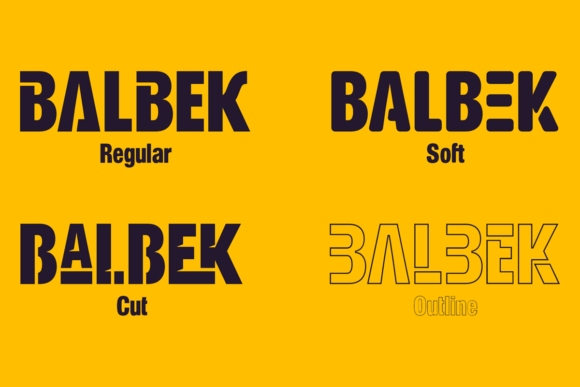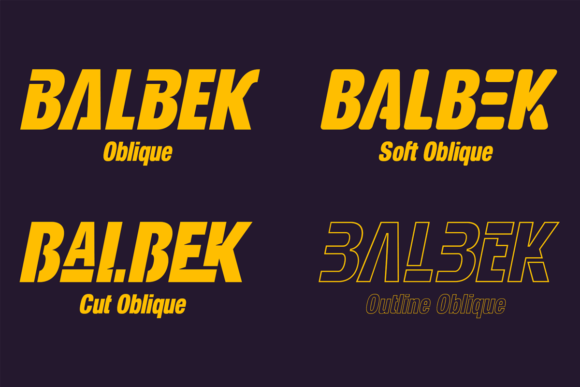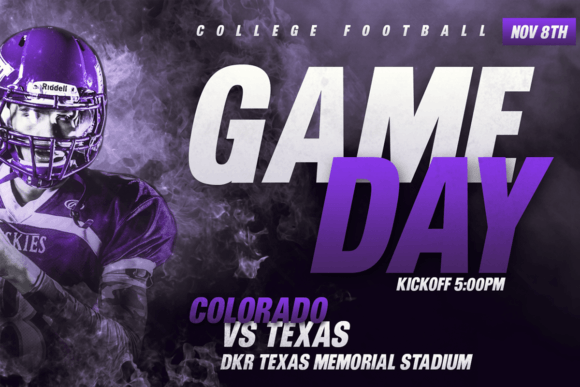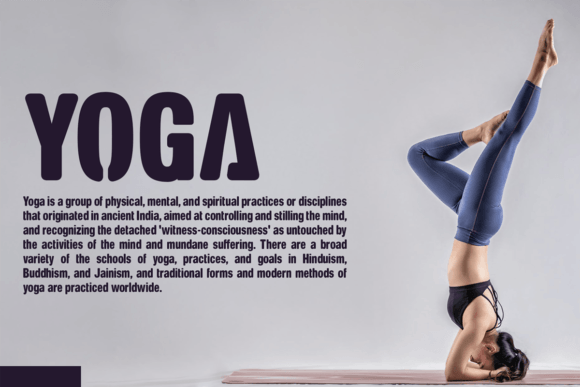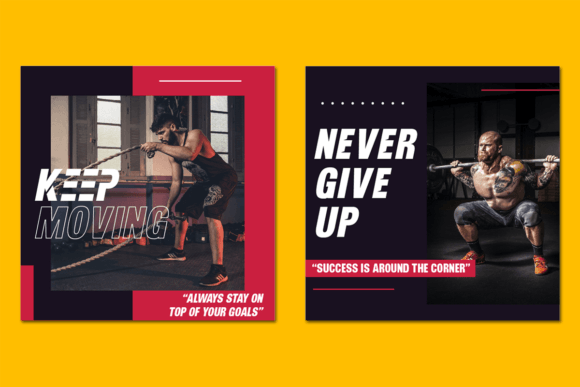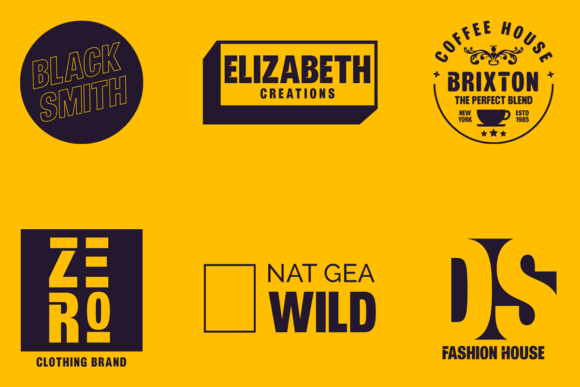
Introducing Balbek: A Modern Condensed Sans Serif Ligature Typeface
In the world of typography, a new font has emerged that’s making waves among designers and crafters alike. Meet Balbek, a modern, condensed sans serif ligature typeface that’s perfect for headlines, advertisements, product packaging, newspapers, and posters. In this article, we’ll dive into the features and inspiration behind Balbek, and explore how it can elevate your next design project.
The Inspiration Behind Balbek
The Balbek font was inspired by other condensed sans serifs, such as Gabo Drive and Impact. These fonts are known for their bold, eye-catching, and heavy designs, making them perfect for grabbing attention. The creator of Balbek took these inspirations and ran with them, crafting a unique and modern take on the condensed sans serif genre.
What Makes Balbek Stand Out
So, what sets Balbek apart from other fonts in its class? Here are a few key features that make it an excellent choice for designers and crafters:
- Condensed design: Balbek’s condensed design makes it perfect for use in headlines, titles, and other applications where space is limited.
- Heavy and bold: With its heavy and bold strokes, Balbek demands attention and makes a statement.
- Sans serif ligatures: The font features ligatures, which add a touch of sophistication and elegance to your designs.
- High versatility: Balbek can be used in a wide range of applications, from digital designs to print materials.
Use Cases for Balbek
Balbek’s versatility makes it suitable for a variety of design projects. Here are some use cases to consider:
- Headlines and titles: Use Balbek to create eye-catching headlines and titles that grab attention.
- Advertisements: The font’s bold and condensed design makes it perfect for use in advertisements, where you want to make a statement.
- Product packaging: Add a touch of modernity to your product packaging with Balbek’s sleek and sophisticated design.
- Newspapers and magazines: Use Balbek to create bold and attention-grabbing headlines and titles in your publication.
- Posters and flyers: The font’s heavy and bold design makes it perfect for use in posters and flyers, where you want to make a lasting impression.
Tips for Using Balbek Effectively
To get the most out of Balbek, here are a few tips to keep in mind:
- Use it sparingly: Balbek’s bold design can be overwhelming if used excessively. Use it sparingly to create emphasis and draw attention.
- Pair it with a complementary font: Pair Balbek with a complementary font to create visual interest and add depth to your design.
- Experiment with different sizes and colors: Don’t be afraid to experiment with different sizes and colors to find the perfect combination for your design.
In conclusion, Balbek is a modern, condensed sans serif ligature typeface that’s perfect for designers and crafters looking to add a touch of sophistication and elegance to their designs. With its bold and heavy design, Balbek is sure to grab attention and make a statement. Whether you’re working on a headline, advertisement, product packaging, or poster, Balbek is an excellent choice. So why not give it a try and see how it can elevate your next design project?